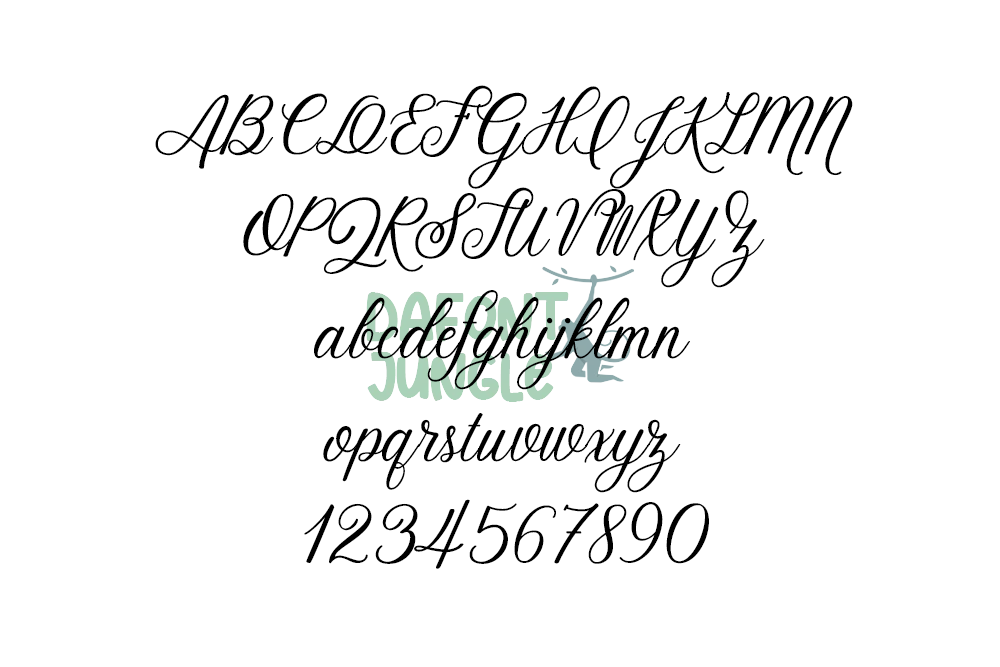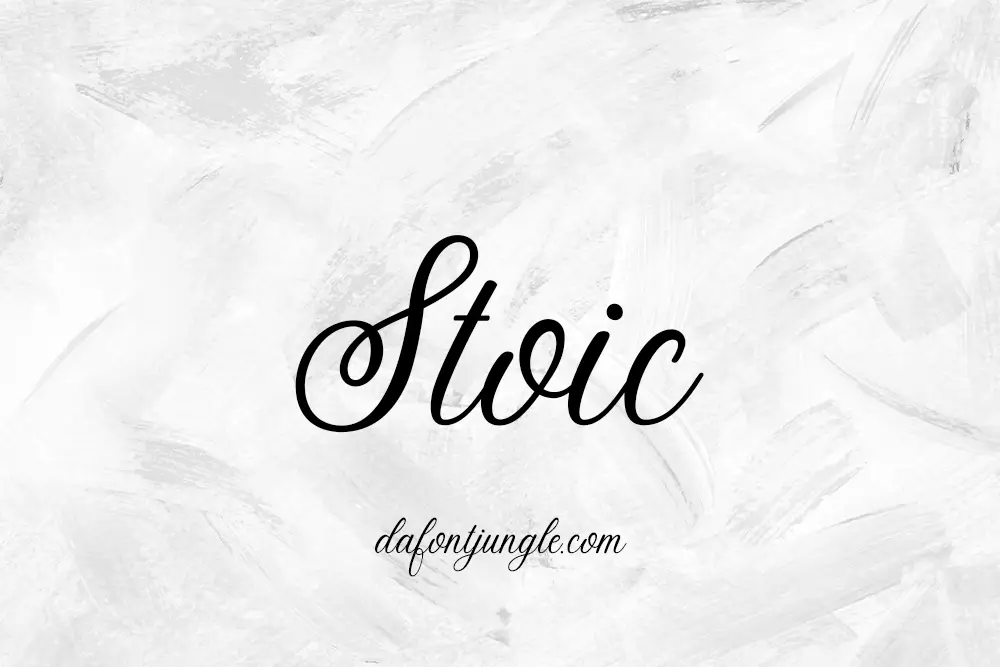
Stoic – Bold Script Font with Stylish Extras
Stoic is a bold script font full of personality. It features smooth curves, flowing letters, and over 550 glyphs. You can use it for logos, wedding invites, branding, packaging, and photo captions.
The font includes many extras to help you customize your text. These include alternate letters, ligatures, initial and final forms, and even three unique ampersands. Stoic also supports multiple languages and currency symbols.